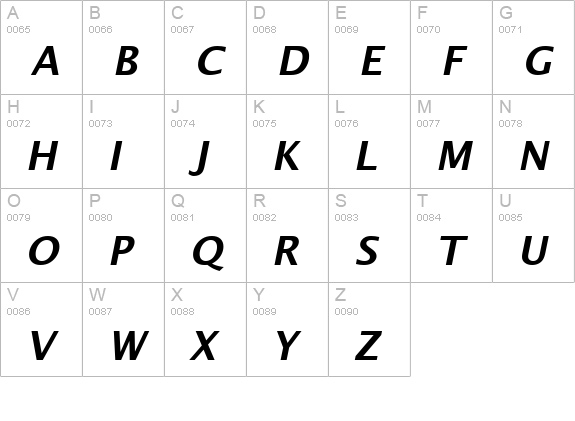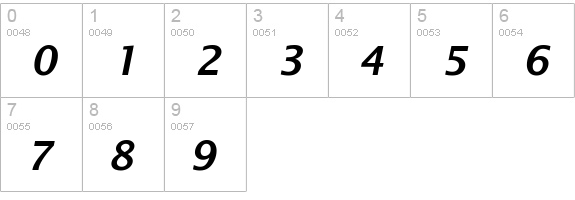
Lucida Sans Demibold Italic is a sub-bold, structured, italic variant in the Lucida typeface family \xE2\x80\x94 well suited to sub-headlines and emphasised passages.
Lucida Sans Demibold Italic is a striking and versatile font that exudes confidence and sophistication. Its bold yet graceful design makes it perfect for conveying a sense of strength and style in any project. The italicized slant adds a touch of elegance and flair, making it ideal for headings, titles, and emphasis. What makes Lucida Sans Demibold Italic even more appealing is that it is available for free download at FontsMarket.com. This means you can easily access this high-quality font without any cost, allowing you to elevate your designs without breaking the bank. Whether you're working on a professional project or a personal creative endeavor, Lucida Sans Demibold Italic is sure to make a bold statement and leave a lasting impression.